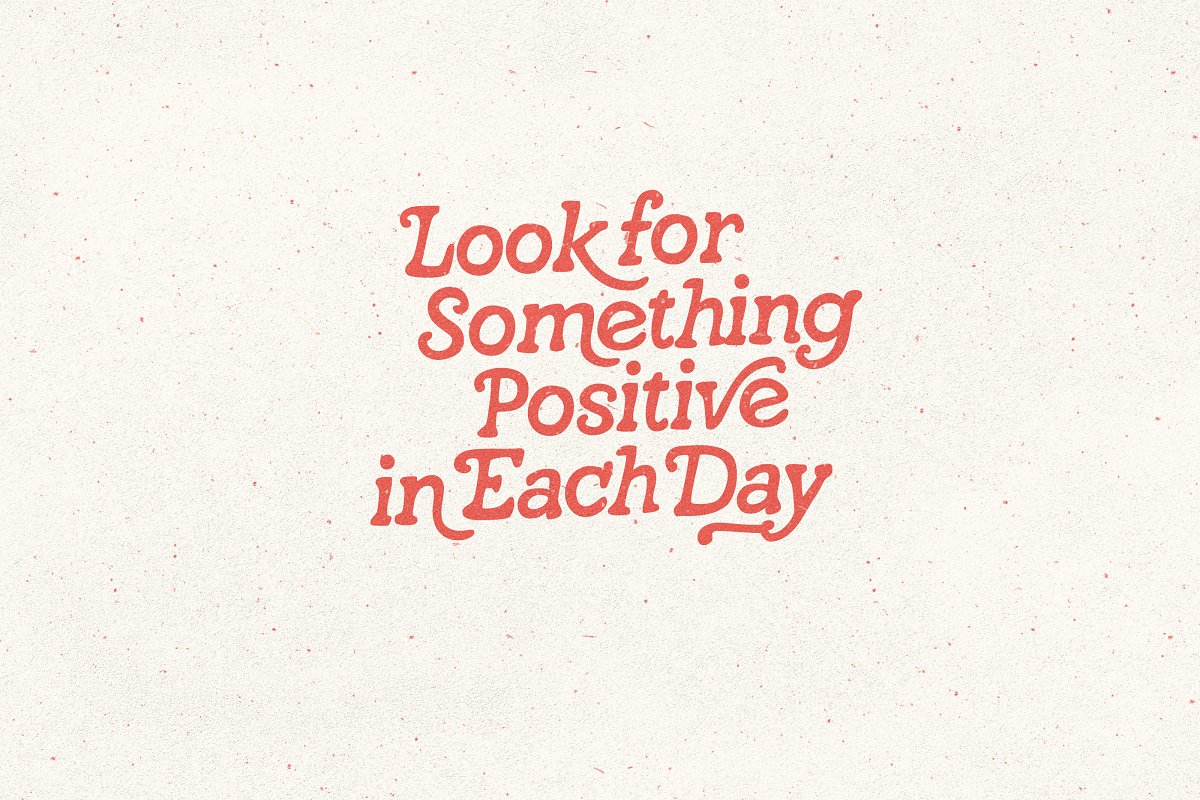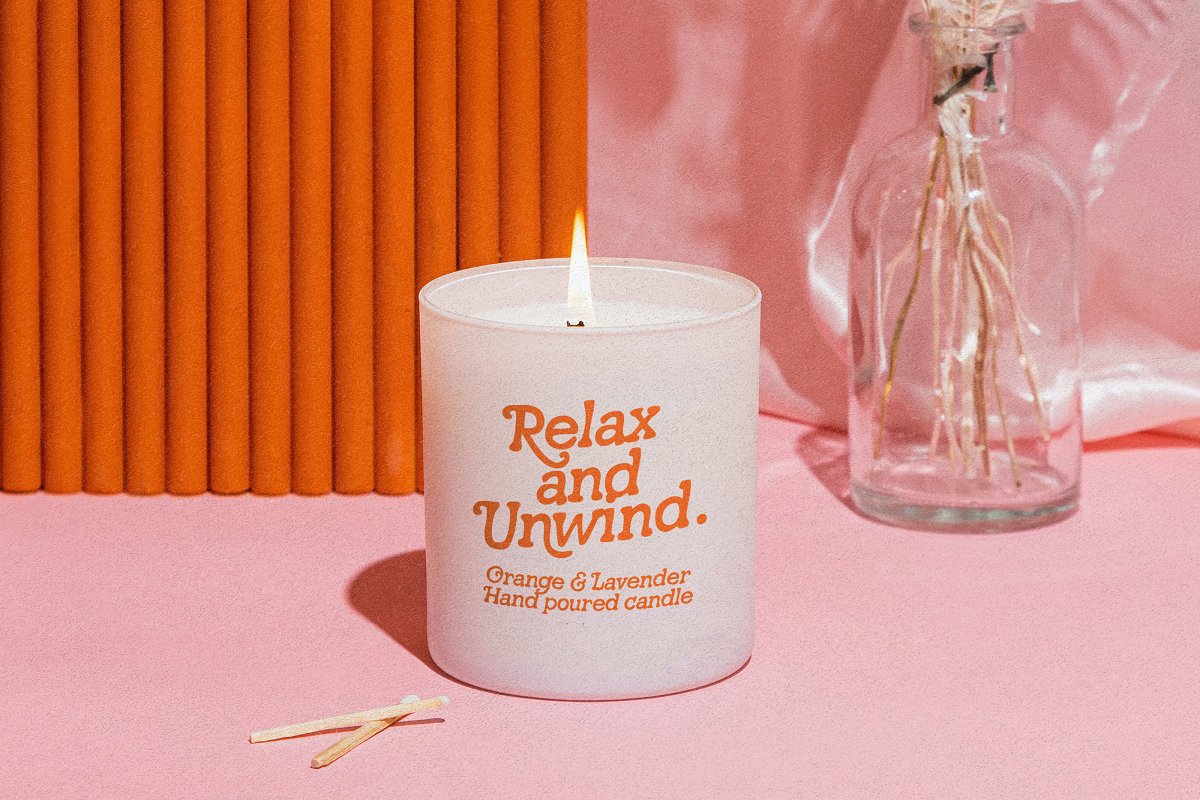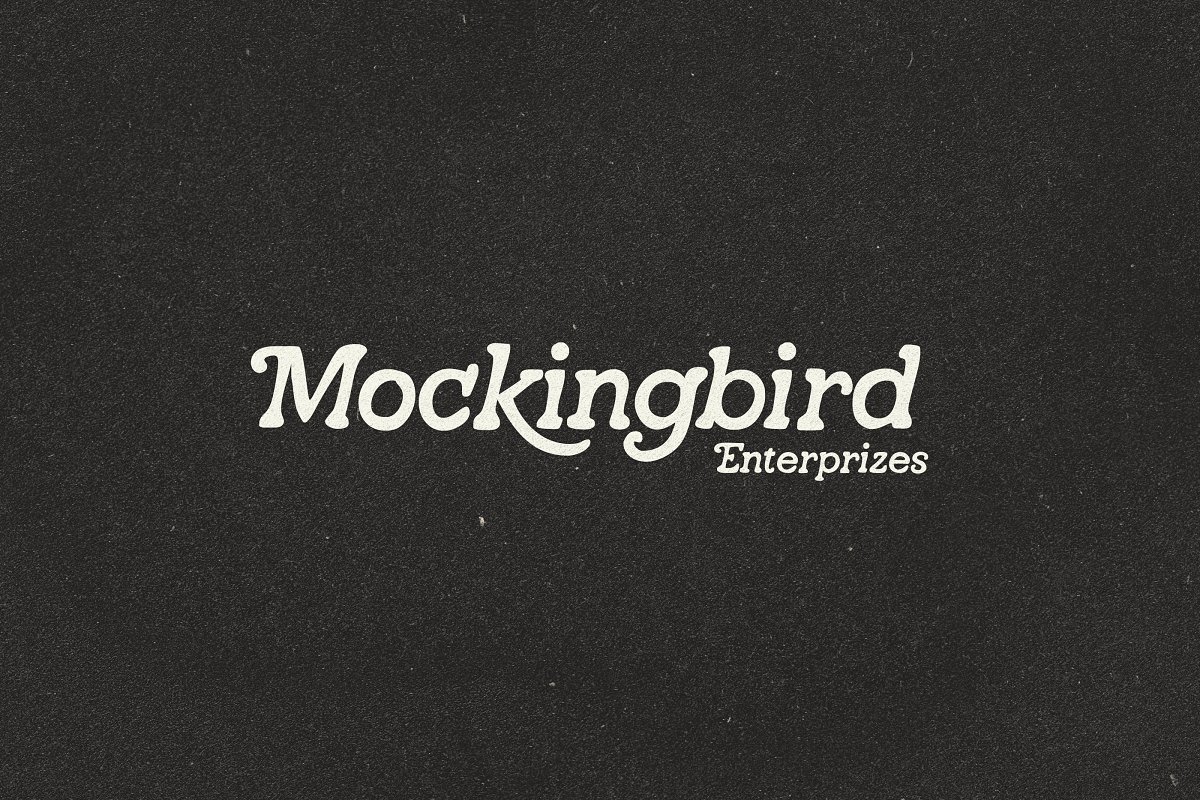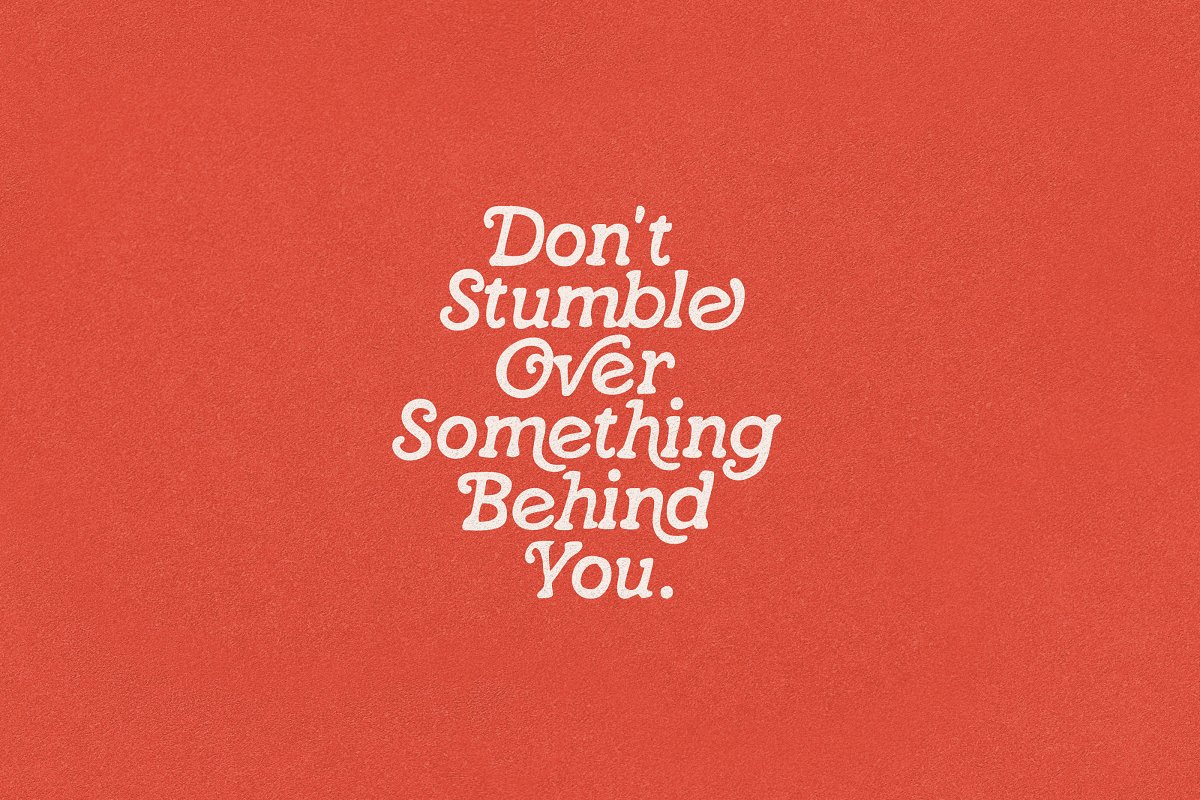
About the Black Magic Slab Serif Font
Get transported back in time, with Black Magic – A casual 70’s style hand-drawn retro slab serif with some groovy Opentype stylistic alternates – see previews above for the alternates you get, Great for that laid back, retro-styled look :)Instructions for non-Opentype users ( such as Canva ) are included, Language Support :Danish, English, Filipino, French, Friulian, Galician, German (Switzerland), Italian, Low German, Luo, Luxembourgish, Norwegian Bokmål, Norwegian Nynorsk, Nyankole, Oromo, Portuguese, Swedish, Swiss German